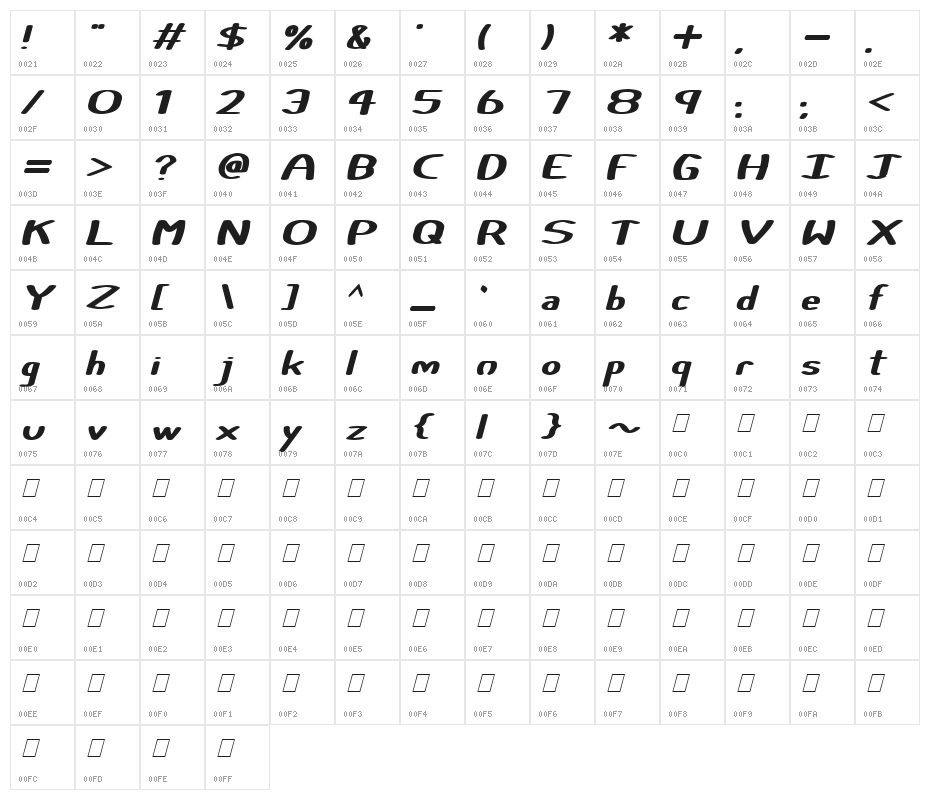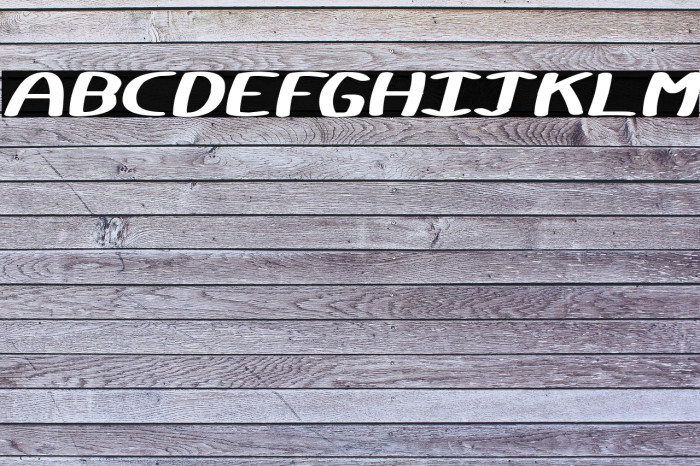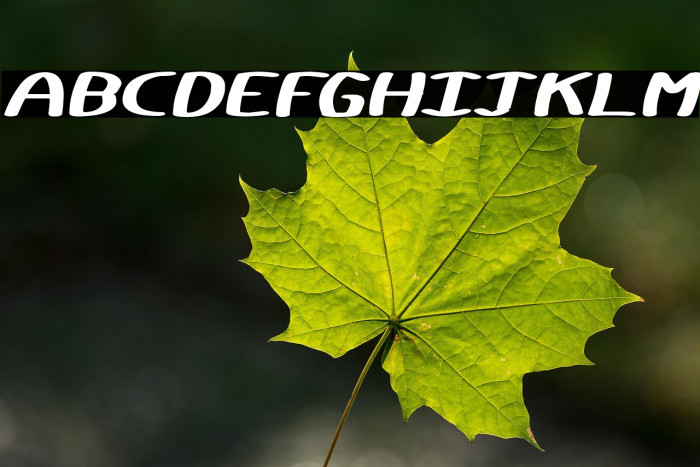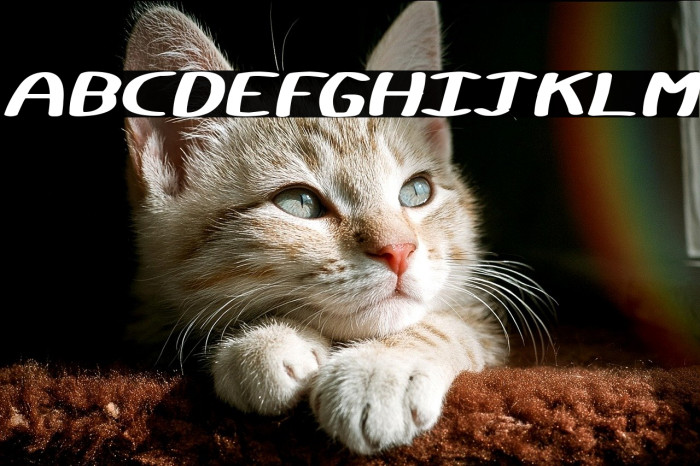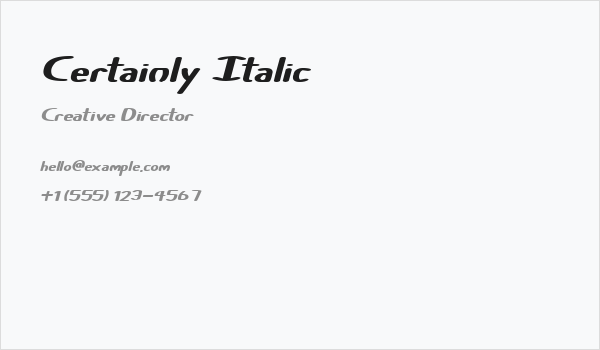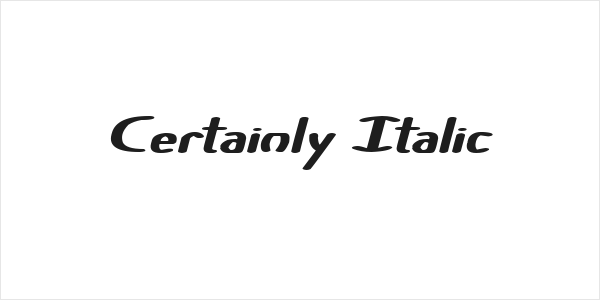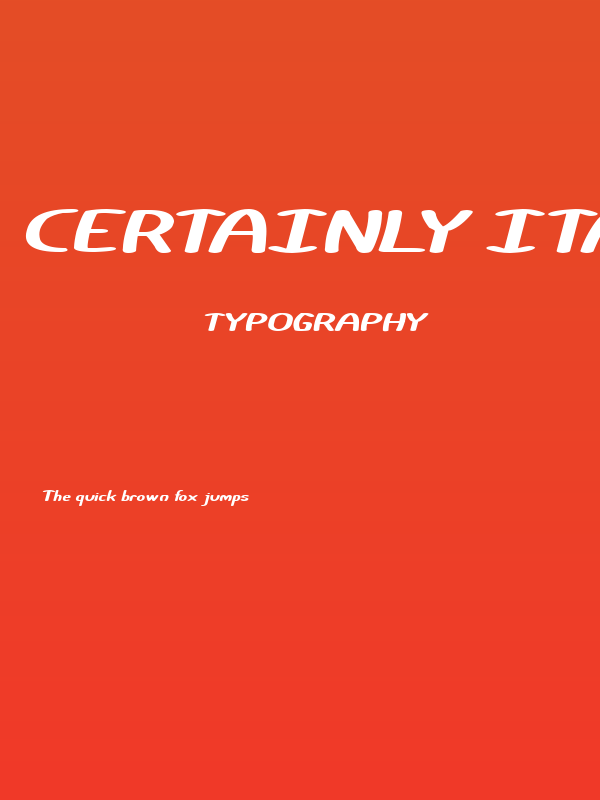
Certainly Italic Font
Certainly Italic Description
This font features a dynamic and fluid design, characterized by its italicized and slightly slanted letterforms. The strokes are smooth and rounded, giving it a friendly and approachable appearance. The uppercase letters maintain a consistent height, while the lowercase letters exhibit a playful bounce, adding to its lively character. The numerals are bold and clear, ensuring readability. Special characters are well-integrated, maintaining the overall style. The font's design is modern yet retains a classic touch, making it versatile for various applications.